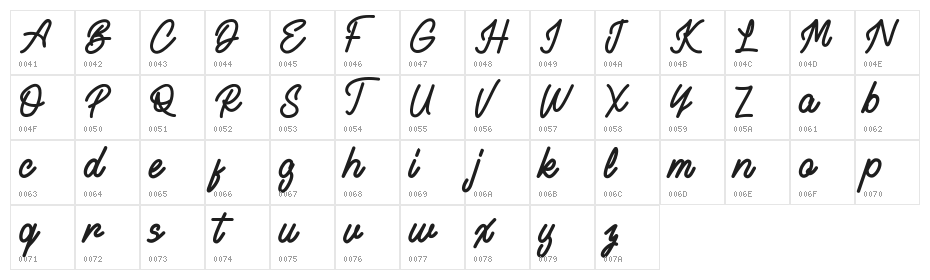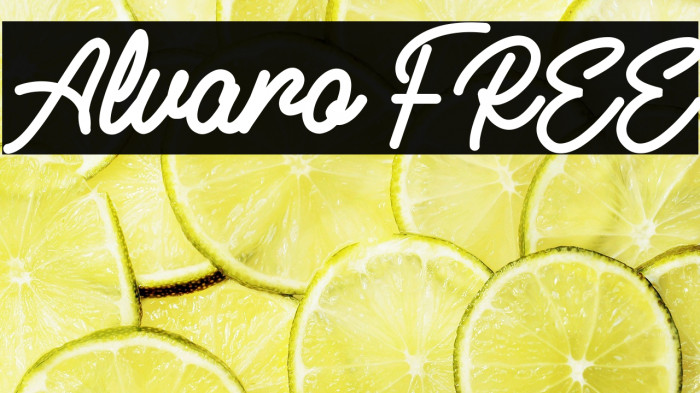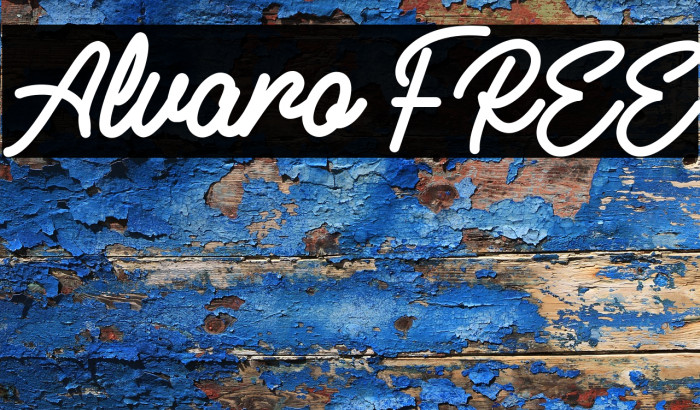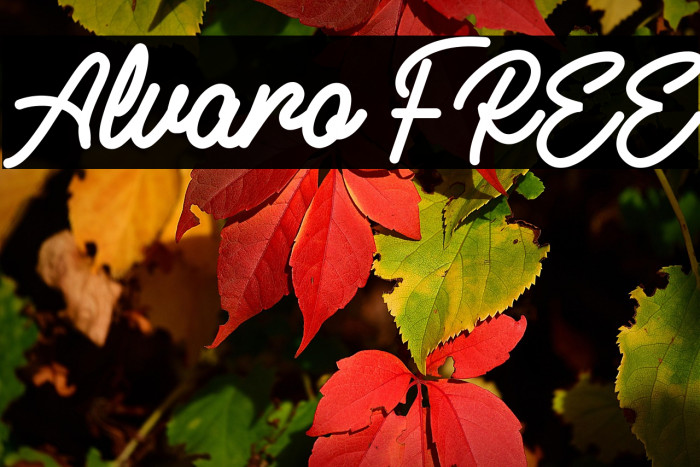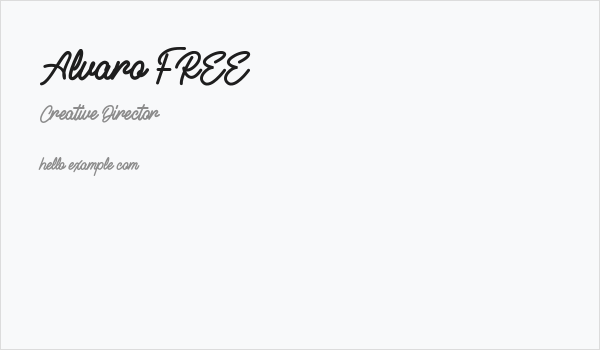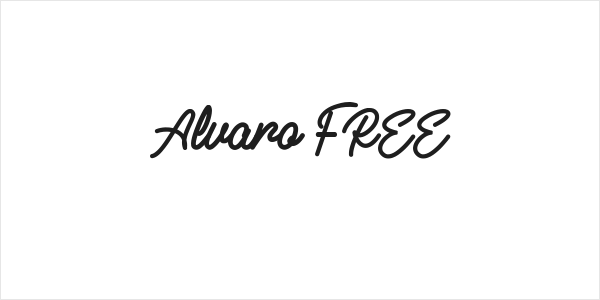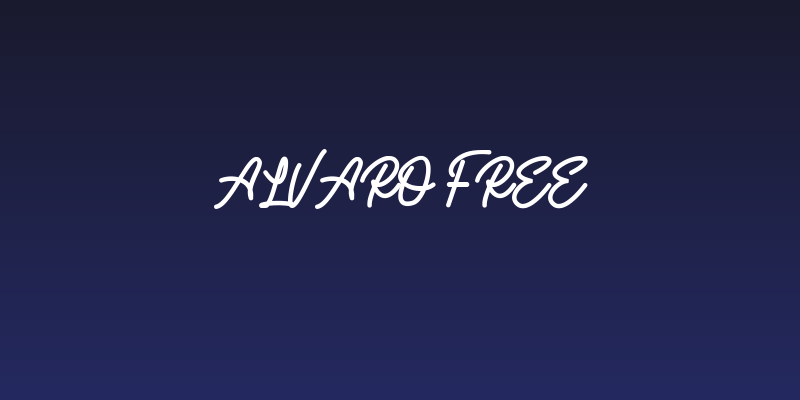
Alvaro FREE Font
Alvaro FREE Description
This font features a flowing, cursive style that exudes elegance and fluidity. The letters are interconnected, creating a seamless and continuous script that mimics natural handwriting. The uppercase letters are slightly more ornate, with flourishes that add a touch of sophistication. The lowercase letters maintain a consistent height, contributing to the font's readability. The numbers and special characters are designed to match the overall aesthetic, ensuring a cohesive look across all text. This font is ideal for projects that require a personal, handwritten touch.
| Overall Style | Elegant, Handwritten |
| Proposed Projects | Ideal for wedding invitations, greeting cards, personal branding, and elegant logos. |